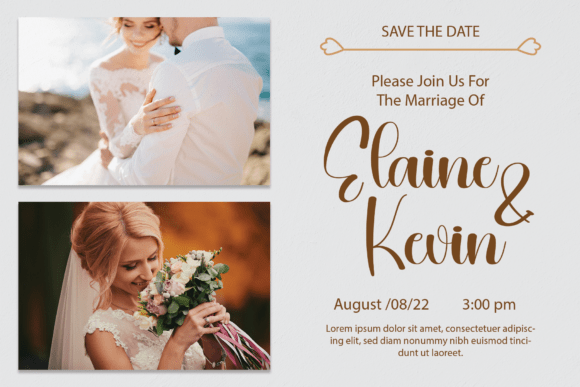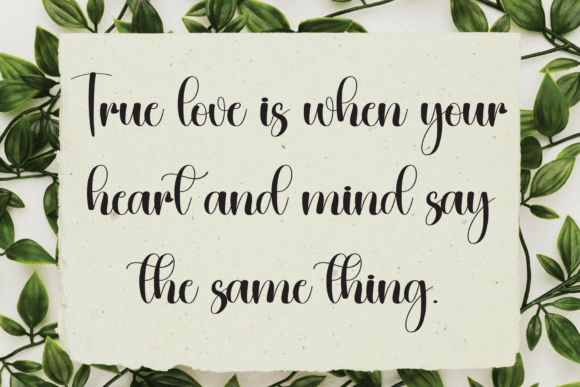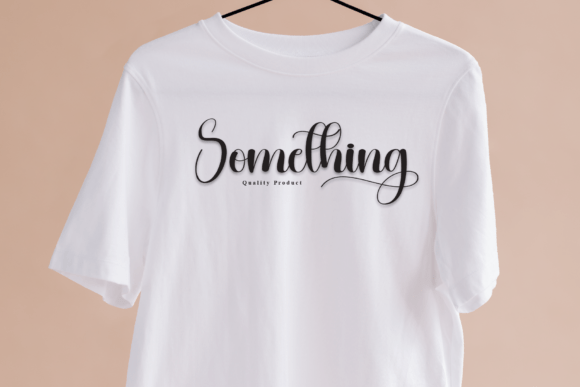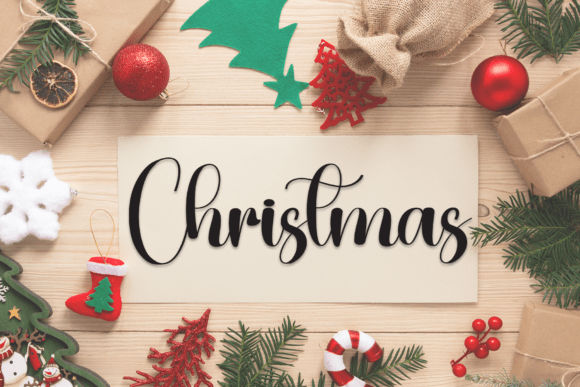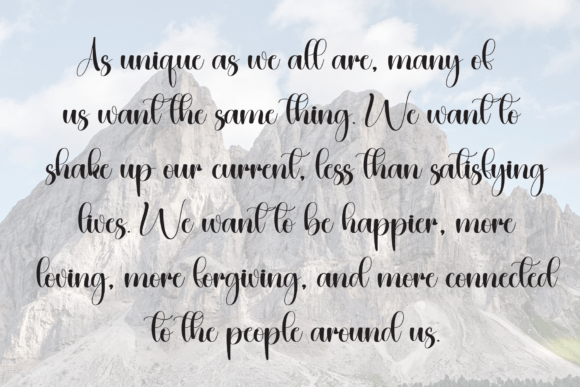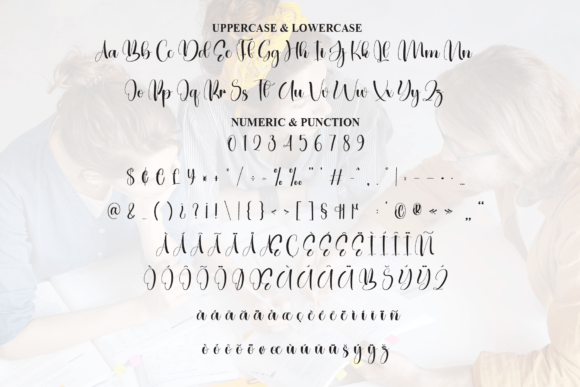
The Elegant Brainly Font: Elevating Designs with a Personal Touch
Have you ever been in the middle of a design project, and suddenly, you’re stuck on finding the perfect font? I recall a recent experience where a client requested a custom wedding invitation design. The theme was elegant and sophisticated, and I was determined to find a font that would match their vision. That’s when I stumbled upon the Brainly Font, a stylish script handwritten font that instantly caught my attention.
A First Impression: What Makes Brainly Font Special
The Brainly Font is a beautiful, elegant script font with smooth curves and a natural flow. Its unique charm makes it perfect for various design projects, including branding, invitations, logos, and more. This font adds a personal and sophisticated touch to any design, making it suitable for both formal and casual projects.
- ✨ Elegant and sophisticated design
- ✅ Highly versatile for various design projects
- ✅ Easy to read, even in smaller sizes
- ✅ Supports OpenType features for advanced typography
- ⚠️ Limited availability of stylistic alternates
- 🤔 May not be the best fit for very bold or distressed designs
The Story Behind Brainly Font: Designer Inspiration
The Brainly Font was designed with the intention of creating a elegant and sophisticated script font that would add a personal touch to any design. The designer aimed to create a font that would be versatile and easy to read, making it perfect for a wide range of design projects.
Q: What type of projects is Brainly Font best suited for?
A: Brainly Font is perfect for branding, invitations, logos, greeting cards, and social media posts. Its elegant and sophisticated design makes it suitable for both formal and casual projects.
Q: Is Brainly Font easy to read?
A: Yes, Brainly Font is designed to be easy to read, even in smaller sizes. Its smooth curves and natural flow make it perfect for body text and headings.